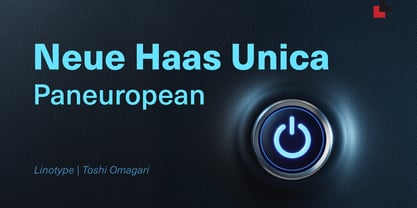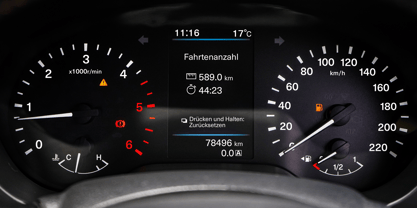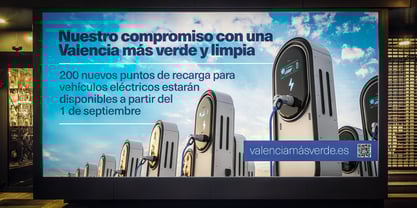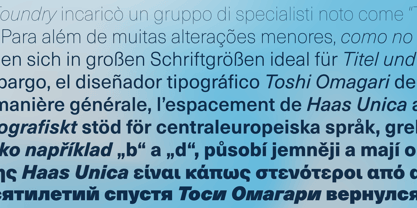
Neue Haas Unica Paneuropean
by Linotype
The Neue Haas Unica Paneuropean Font Family was designed by Toshi Omagari and published by Linotype. Neue Haas Unica Paneuropean contains 18 styles and family package options. More about this family
Neue Haas Unica by Toshi Omagari:
The original purpose behind the creation of the typeface Haas Unica was to provide a sympathetic update of Helvetica. But now the font designer Toshi Omagari has decided to make this typeface his own and has thus significantly supplemented and extended it.
In the late 1970s, at the same time at which hot metal typesetting was being replaced by phototypesetting, the Haas Type Foundry commissioned a group of specialists known as "Team '77" consists of Andre Gurtler, Christian Mengelt and Erich Gschwind to adapt Max Miedinger's font
The characters of Haas Unica are somewhat narrower than those of Helvetica so that the larger bowls, such as those of the "b" and "d", appear more delicate and have a slightly more pleasing effect.
In general, the spacing of Haas Unica was increased to provide for improved kerning and thus enhance the legibility of the typeface in smaller point sizes. Major changes were made to the lowercase "a", in that the curve of the upper bowl became rounder and its spur was eliminated. The form of the "k" was additionally modified to remove the offset leg so that both diagonals originate from the main stem. The outstroke of the uppercase "J" was also significantly curtailed.
In addition to many minor alterations, such as to the length of the horizontal bars of the "E", "F" and "G" and to the angle of the tail of the "Q", the leg of the "R" was extended and made more diagonal.
In the case of the numerals, the upper curve of the "2" was reduced and the lower loops of the "5" and "6" were correspondingly adapted. The sweep of the diagonal of the "7" was also reduced.
Several decades later, Toshi Omagari returned to the original sketches with the objective of reinvigorating this almost totally forgotten typeface. First, however, he needed to revise the drafts prepared by Team '77 to adapt them for digital typesetting. So Omagari carefully adjusted the proportions of the glyphs, achieving a more uniform overall effect across all line weights and removed details that had become redundant for contemporary typefaces. It was also apparent from the old drafts that it had been the case that the original plan was to create more than the four weights that were published. Omagari has added five additional styles, giving his Neue Haas Unica? a total of nine weights, from Ultra Light to Extra Black.
He has also greatly extended the range of glyphs. Providing as it does typographic support for Central and European languages, Greek and Cyrillic texts, Neue Haas Unica is now ready to be used for major international projects. In addition, it has been supplied with small caps and various sets of numerals.
With its resolute clarity and excellent typographic support, Neue Haas Unica is suitable for use in a wide range of new contexts. The light and elegant characters can be employed in the large point sizes to create, for example, titling and logos while the very bold styles come into their own where the typography needs to be powerful and expressive. The medium weights can be used anywhere, for setting block text and headlines.
Designers: Toshi Omagari
Foundry: Linotype